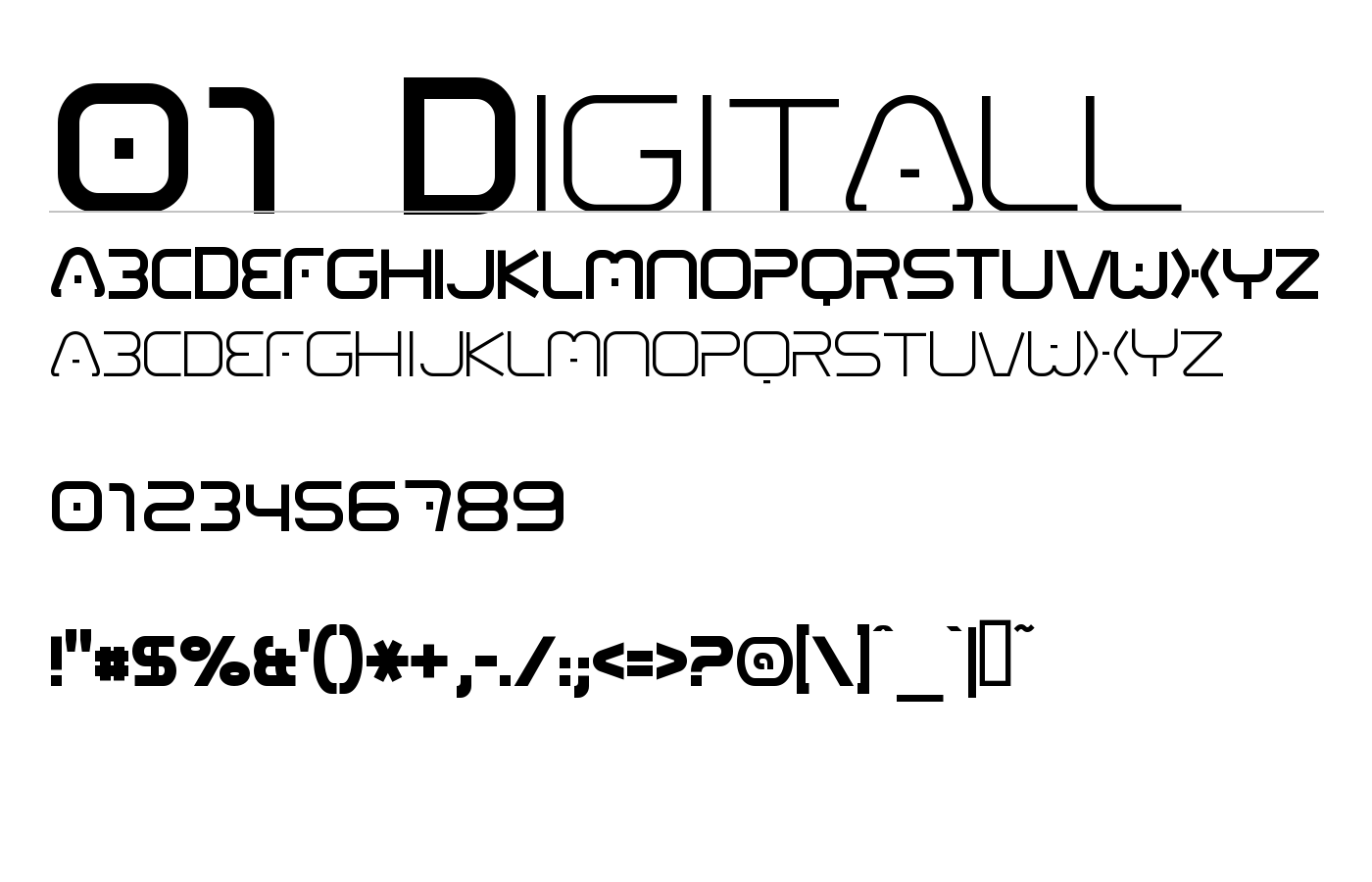
01 Digitall is a modern, futuristic sans serif font characterized by its geometric shapes, monoline strokes, and distinctive digital-inspired details such as square counters and angled terminals. With a clean and technical appearance, it exudes a sleek, innovative vibe ideal for technology brands, digital interfaces, and contemporary design projects that seek a cutting-edge, minimalist style. Its unique letterforms and consistent stroke weight make it eye-catching for headlines, logos, and branding in forward-thinking industries.
01 Digitall Font
About 01 Digitall Font
| Font family | 01 Digitall Font |
| Designer | David Chung |